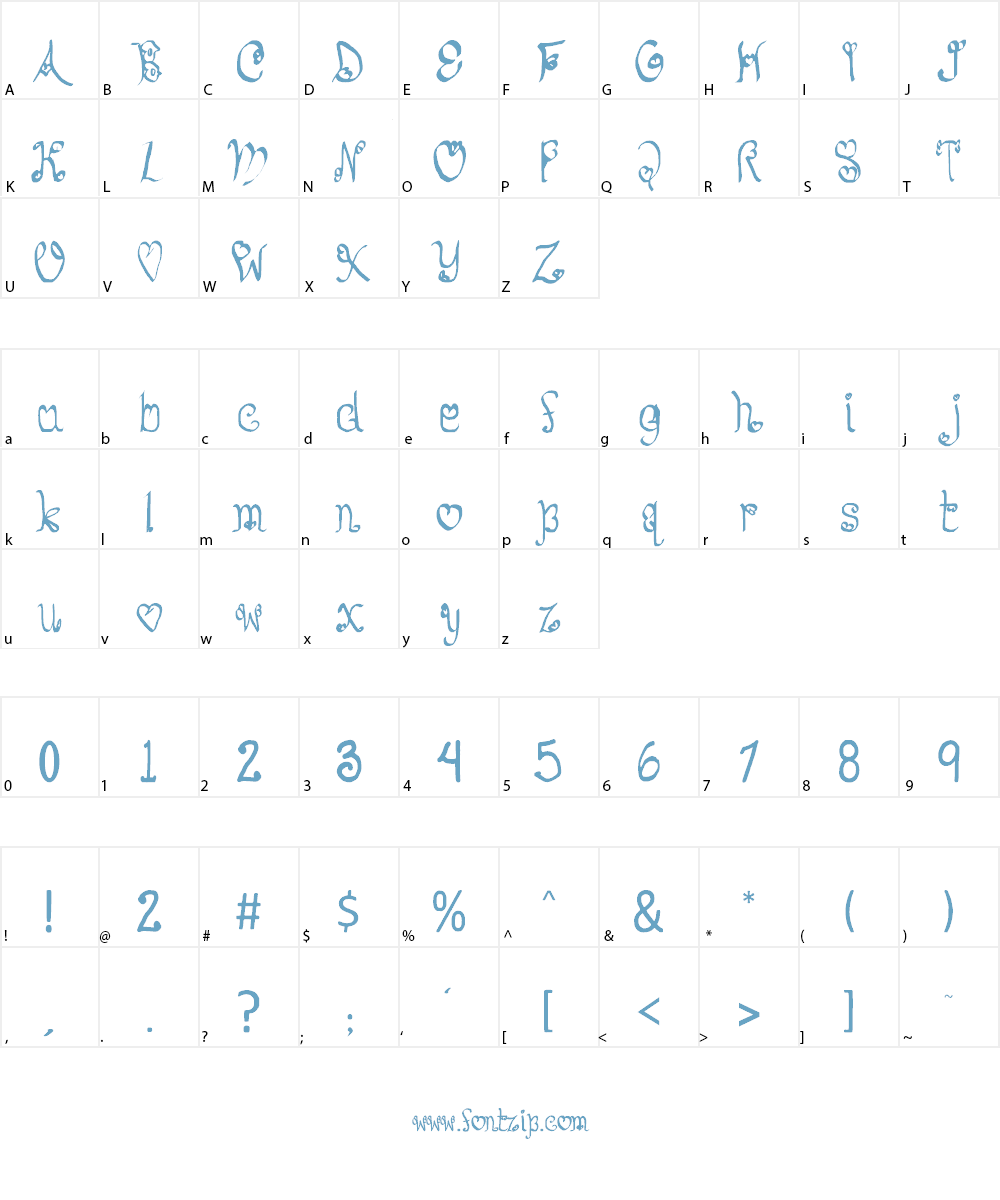
So Lovable has a heart shape in each letter and was created for use on any occasion where you want to convey love and cheer. If you want to use it for commercial use, please give a contribution.